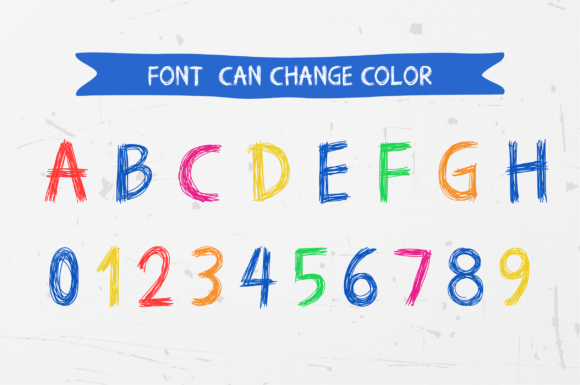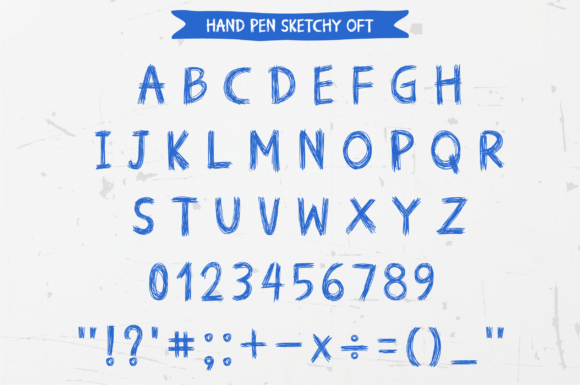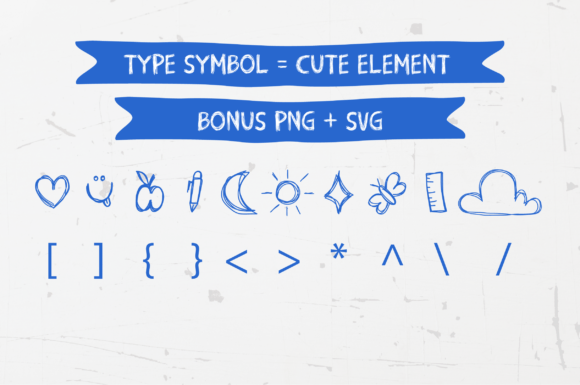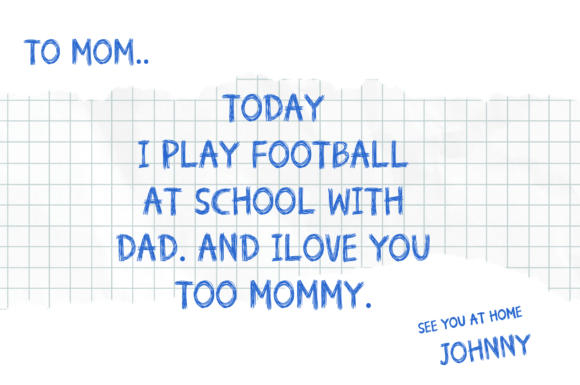
Unleash Your Creativity with Hand Pen Sketchy Font
Are you ready to add a touch of playfulness to your designs? Look no further than the “Hand Pen Sketchy” font, a delightful kids’ doodle font that’s perfect for bringing out your inner child. This charming font is designed to add a sketchy, hand-drawn feel to your projects, making it ideal for crafters, designers, and anyone looking to add a bit of whimsy to their work.
What Makes Hand Pen Sketchy Font So Special?
The “Hand Pen Sketchy” font is a unique and versatile typeface that’s packed with features to make your designs stand out. Here are just a few reasons why you’ll love working with this font:
- Playful and Sketchy Style: The font boasts a playful, sketchy style that’s reminiscent of kids’ doodles. It’s perfect for creating fun and engaging designs that appeal to a younger audience.
- Easily Changeable Colors: One of the best features of the “Hand Pen Sketchy” font is that you can easily change the colors as you type. This adds a fun touch to your projects and allows you to experiment with different color schemes to find the perfect look.
- Cute Symbols: The font includes a range of cute symbols to enhance your designs. From stars and hearts to animals and shapes, these symbols will help you add an extra layer of personality to your projects.
The “Hand Pen Sketchy” font is a dream come true for designers and crafters who love to work with playful and creative typefaces. Whether you’re designing:
- Children’s Party Invitations: Add a touch of whimsy to your party invites with the “Hand Pen Sketchy” font.
- Crafting Projects: Use the font to create fun and colorful titles for your crafting projects, such as scrapbooking, card making, or DIY tutorials.
- Social Media Graphics: Bring a playful touch to your social media graphics, such as quote graphics, Facebook posts, or Instagram stories.
- Digital Art: Experiment with the “Hand Pen Sketchy” font to add a hand-drawn feel to your digital art.
Tips for Using Hand Pen Sketchy Font
To get the most out of the “Hand Pen Sketchy” font, here are a few tips to keep in mind:
- Experiment with Colors: Don’t be afraid to try out different color combinations to find the perfect look for your project.
- Mix and Match Symbols: Use the cute symbols included with the font to add visual interest to your designs.
- Play with Font Sizes: Experiment with different font sizes to create visual hierarchy and add emphasis to your text.
The “Hand Pen Sketchy” font is a delightful addition to any designer’s or crafter’s toolkit. With its playful, sketchy style and range of features, it’s perfect for adding a touch of whimsy to your projects. So why wait? Give it a try and let your creativity shine!